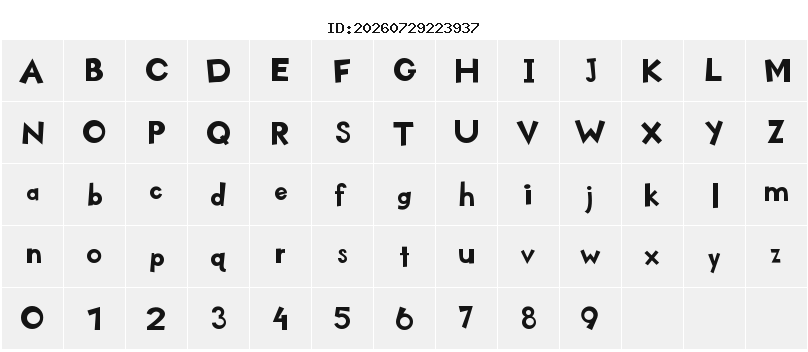
KidZone Preview
• Font Name: KidZone
• Full Font Name: KidZone
• Version: Version 1.00 September 23, 2015, initial release
About KidZone.ttf
KidZone.ttf is a modern, elegant sans-serif font designed for ultimate readability and visual harmony. Perfect for branding, headlines, web design, and print materials.